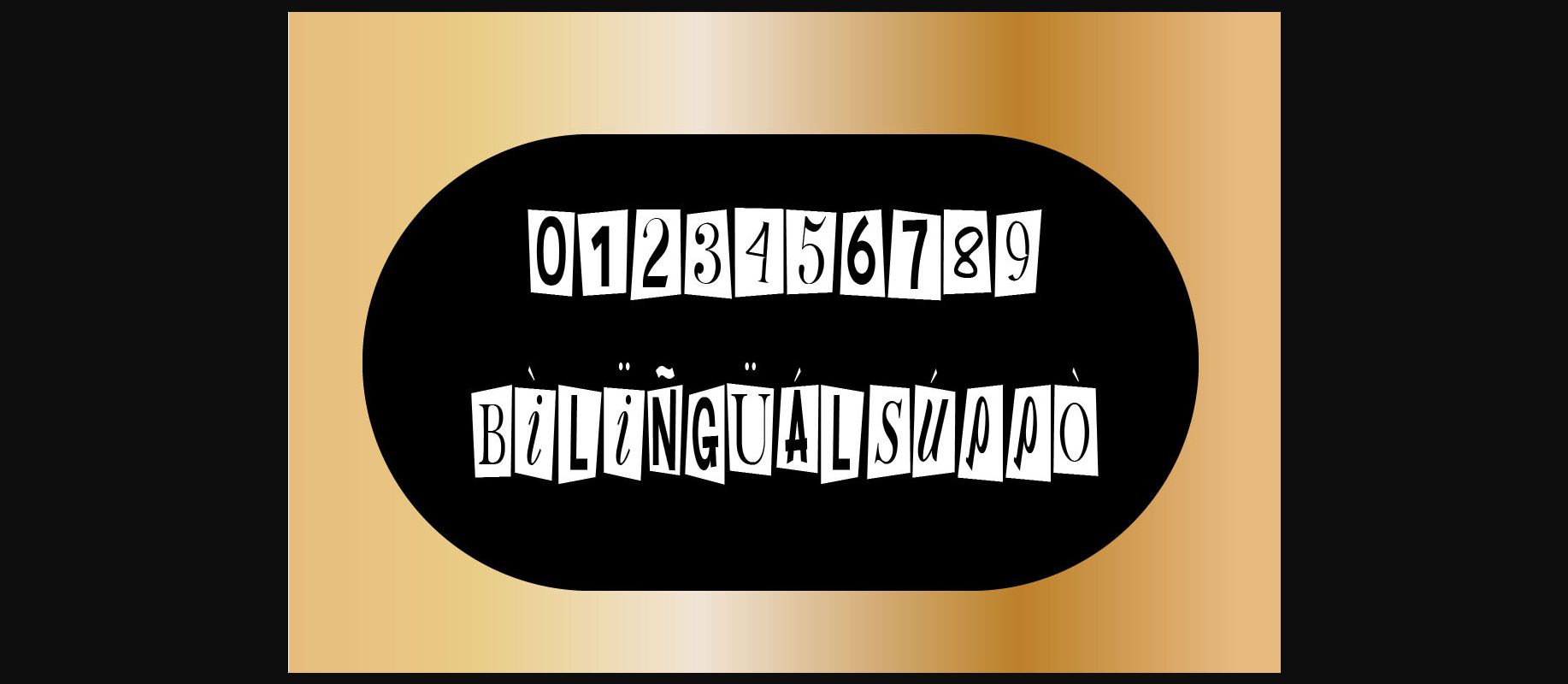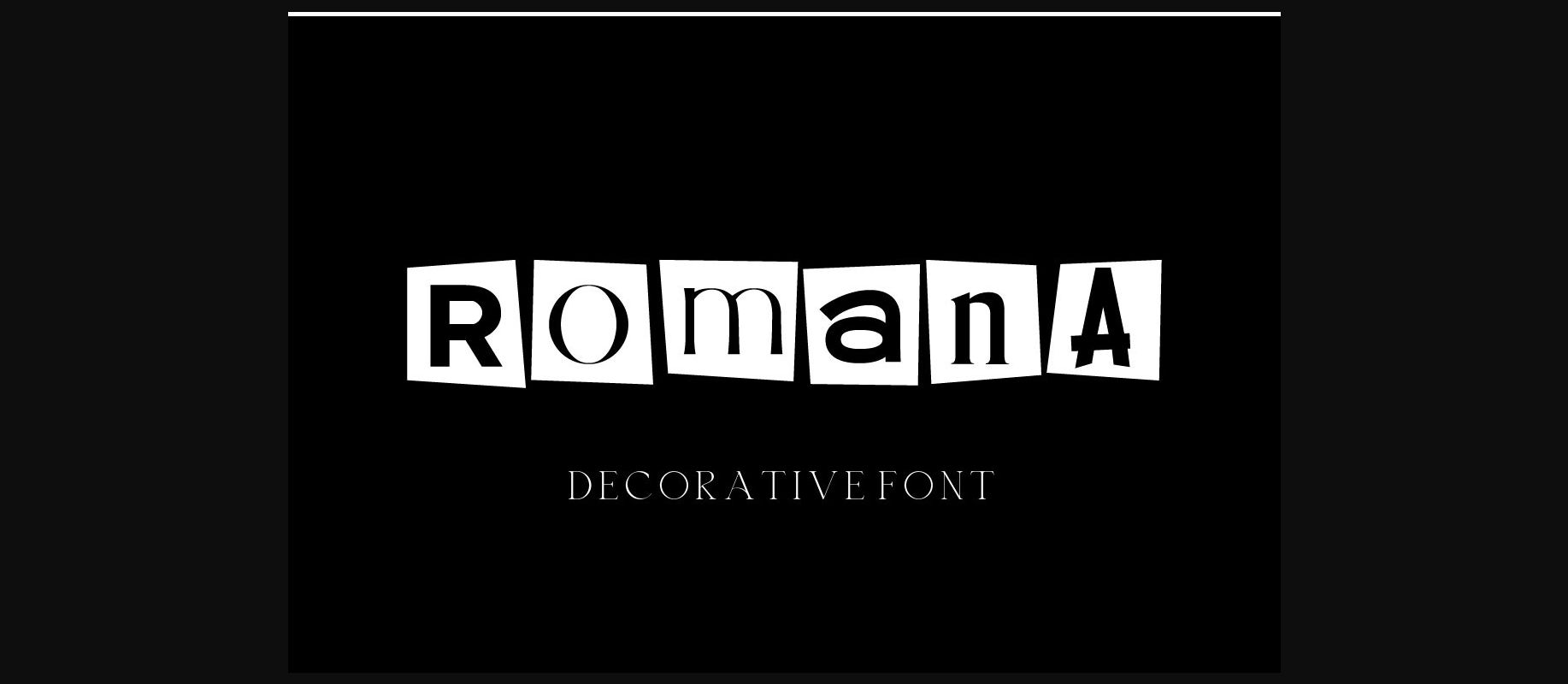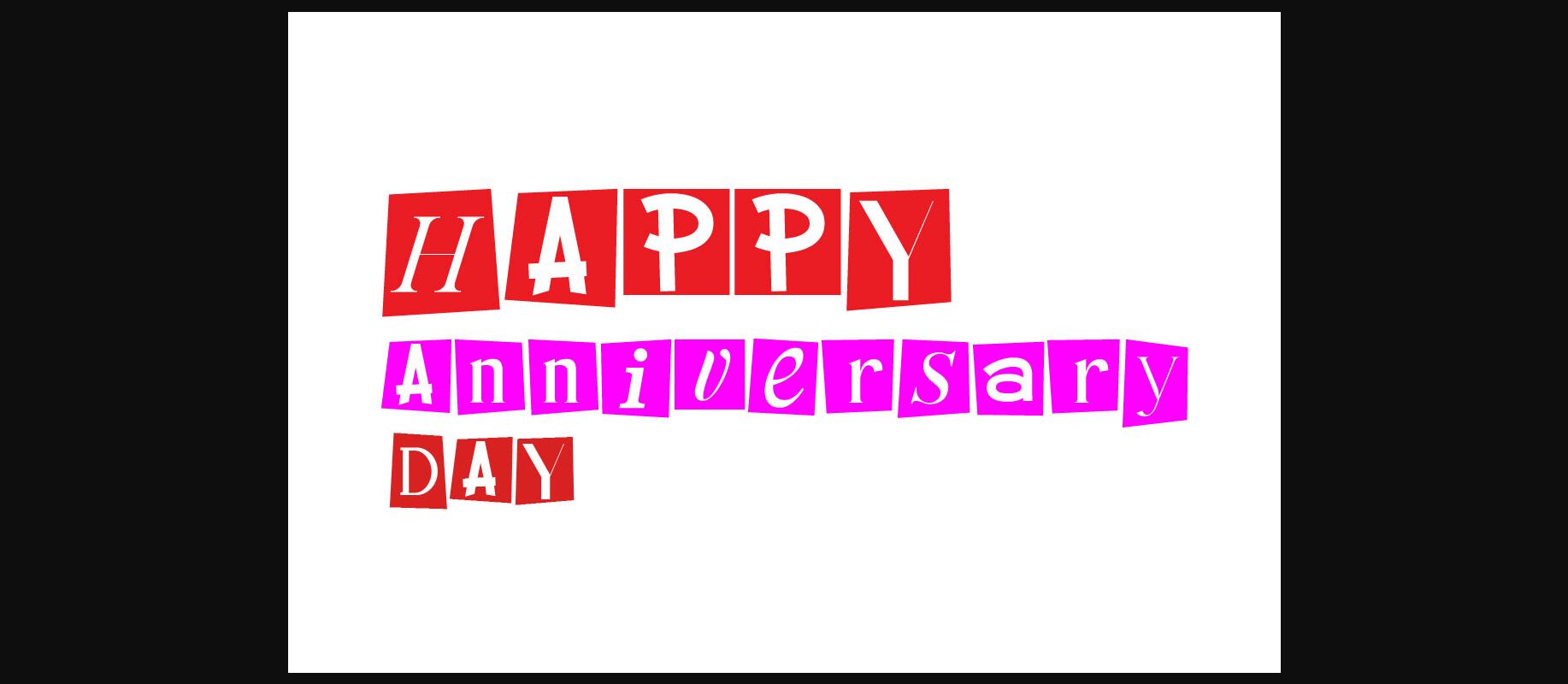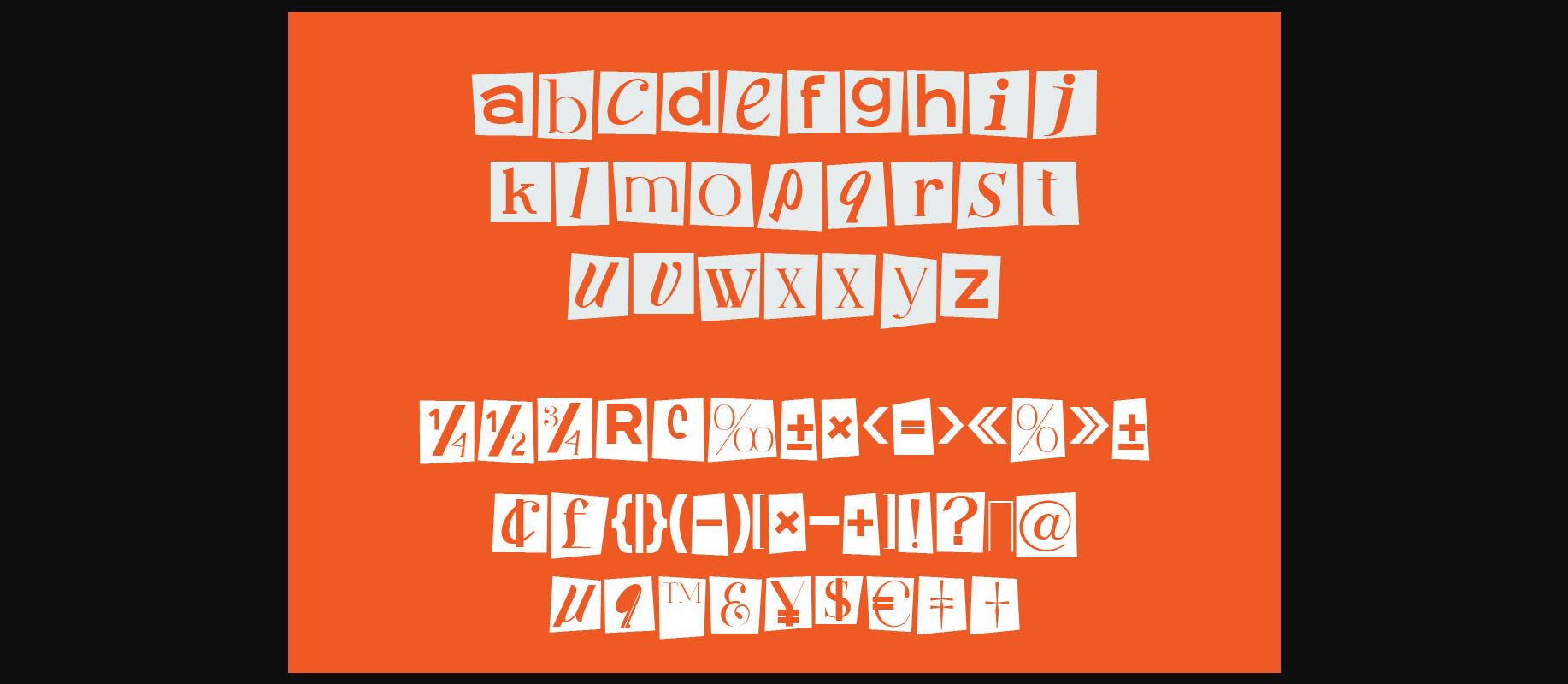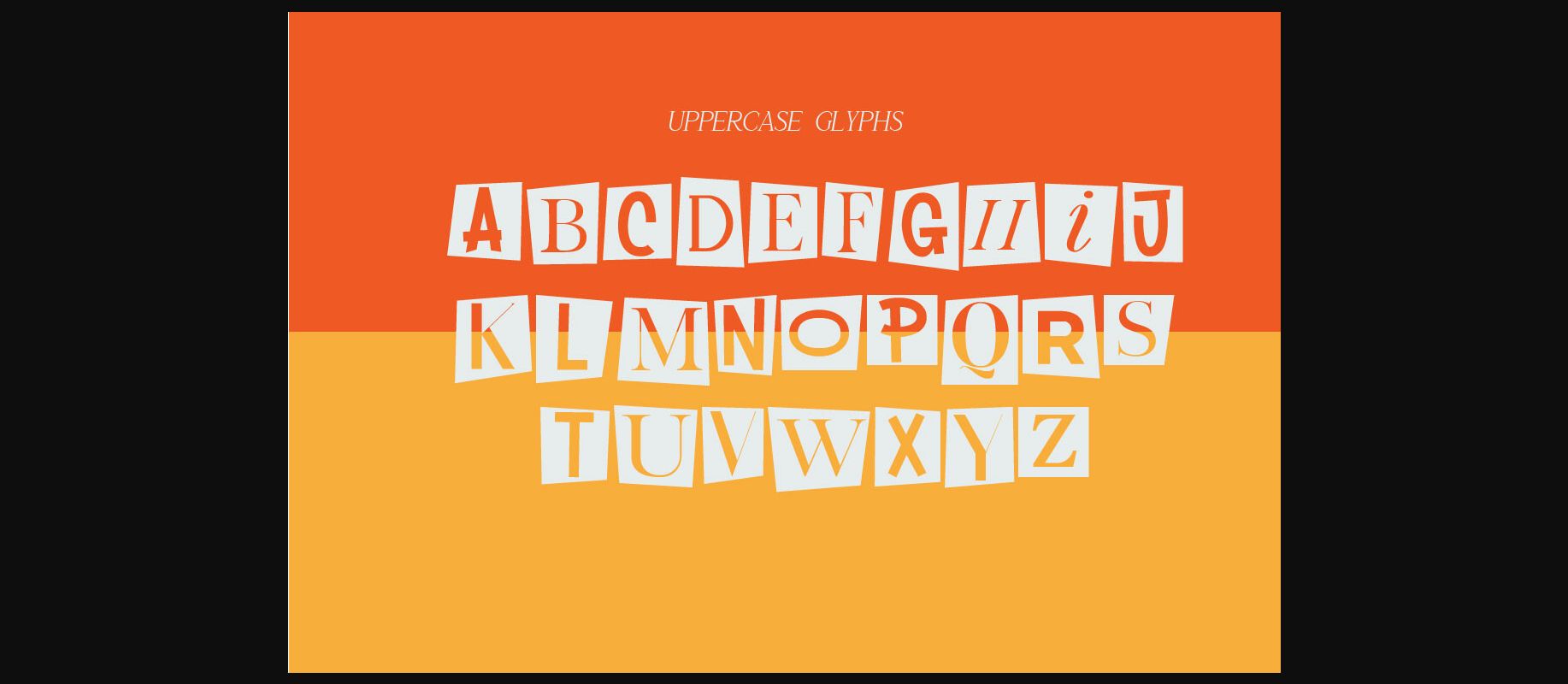
Romana Font
About Romana Font
Ramona decorative font with serif family style characters. This will look so good on your invites, cards and any other fun projects you are working on.